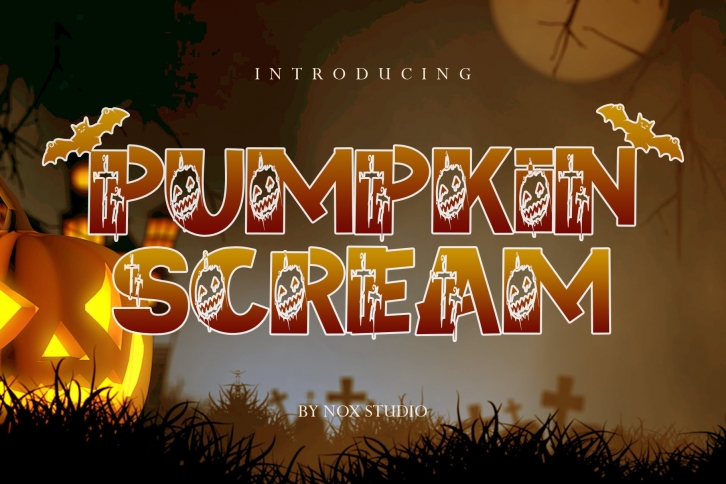
Pumpkin Scream is a cool and creepy decorative font. This font is PUA encoded which means you can access all of the glyphs and swashes with ease! Add it to each of your Halloween designs and notice how they instantly stand out.